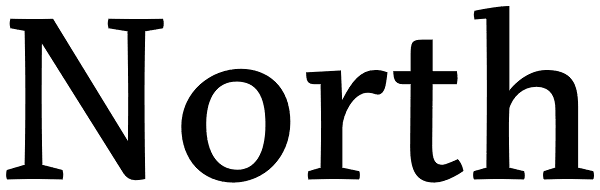
North
North is a small type family designed for books and pages of text in smaller or bigger sizes. It has been designed with special care for the Scandinavian languages, their letter combinations and special characters, but contains accented characters...